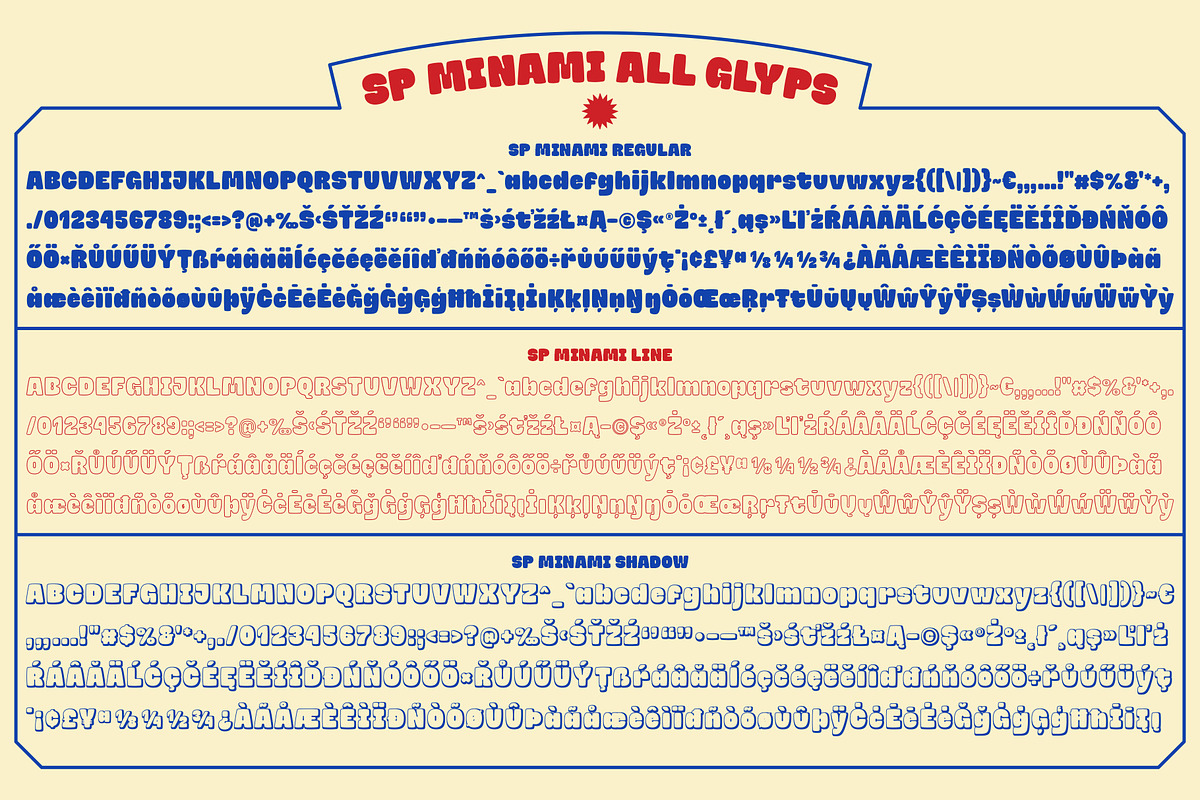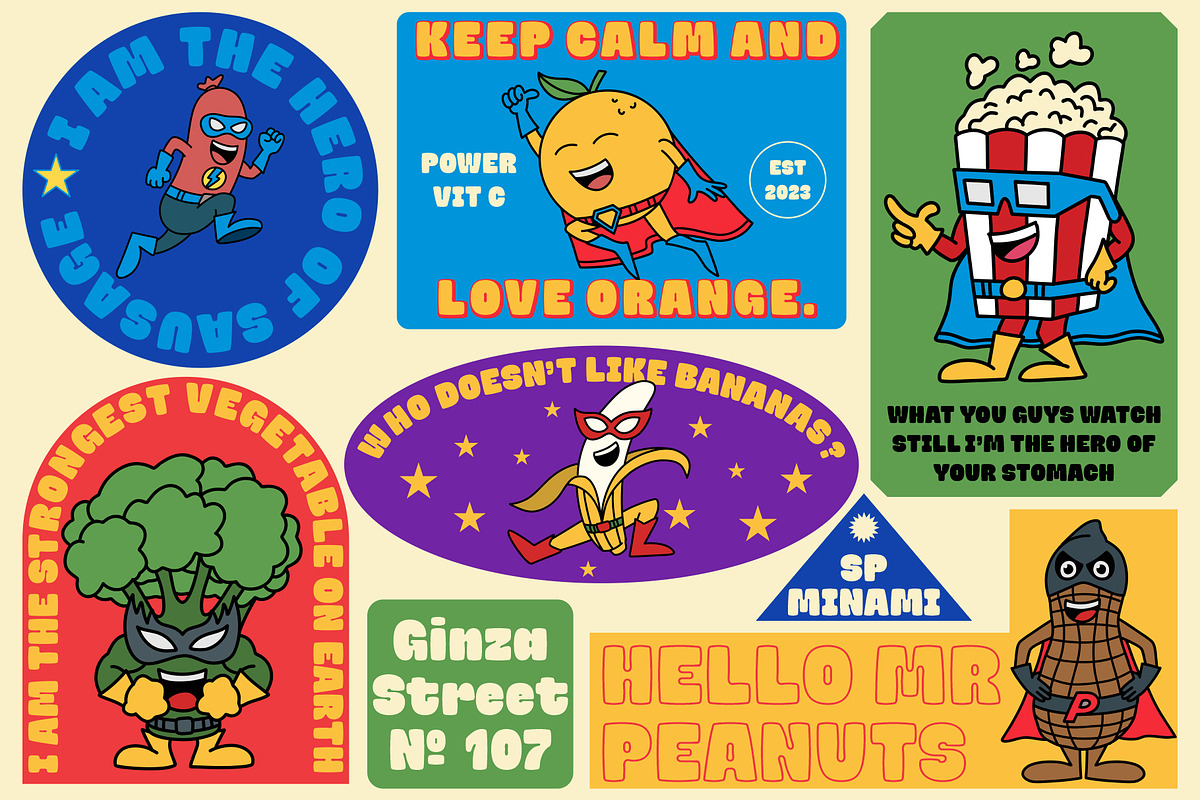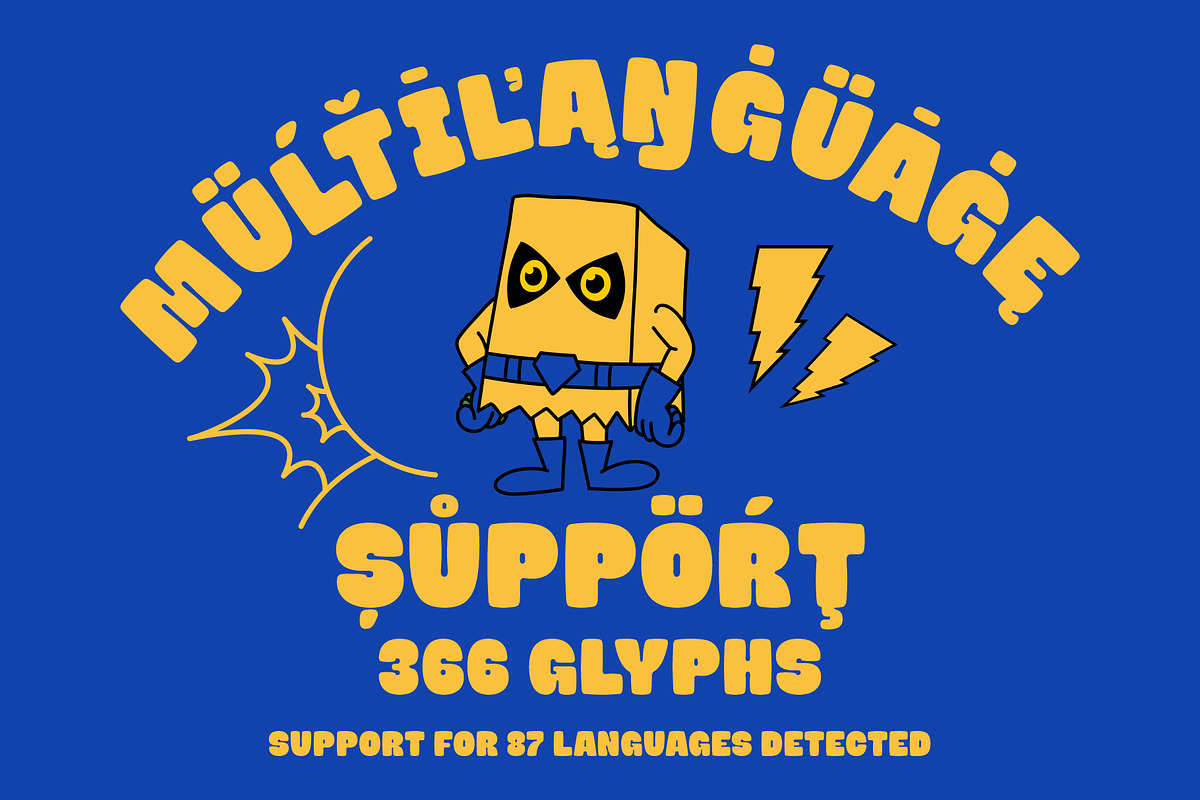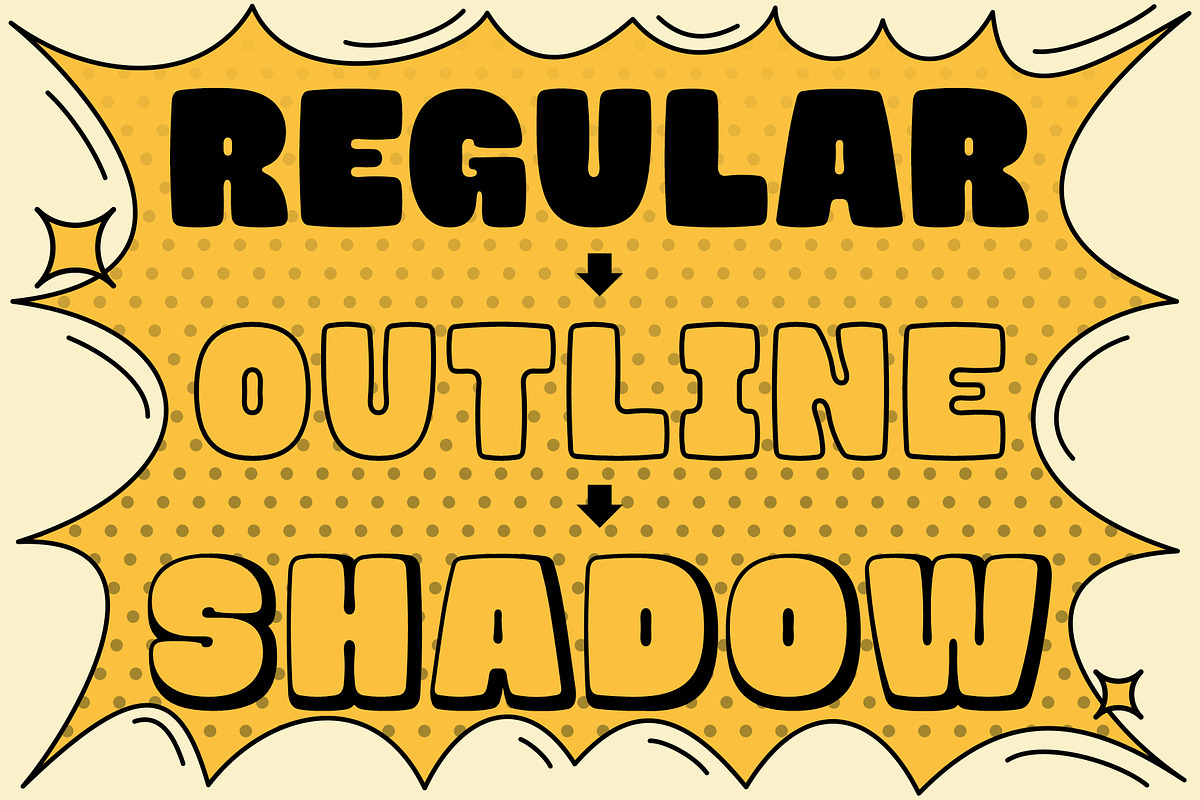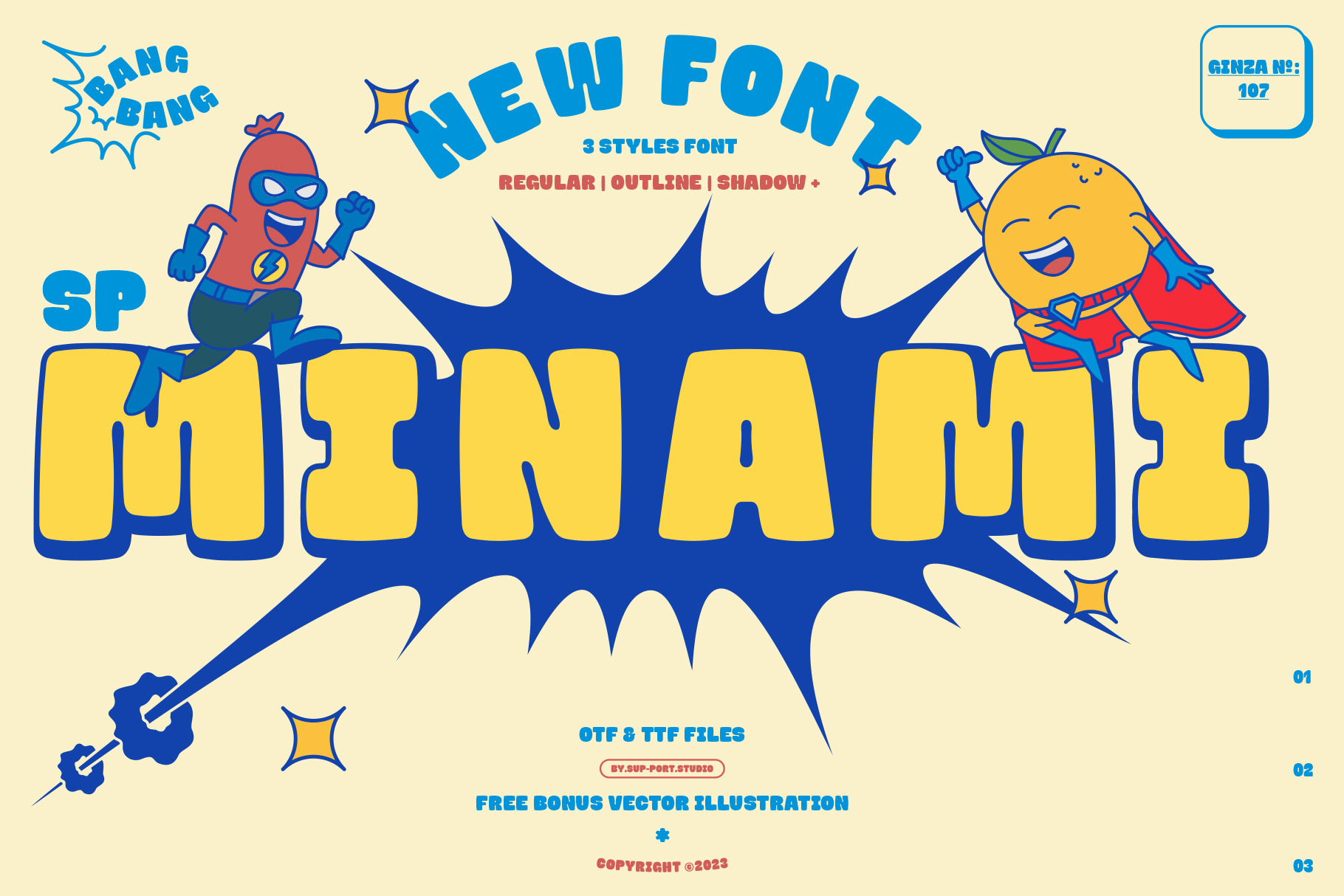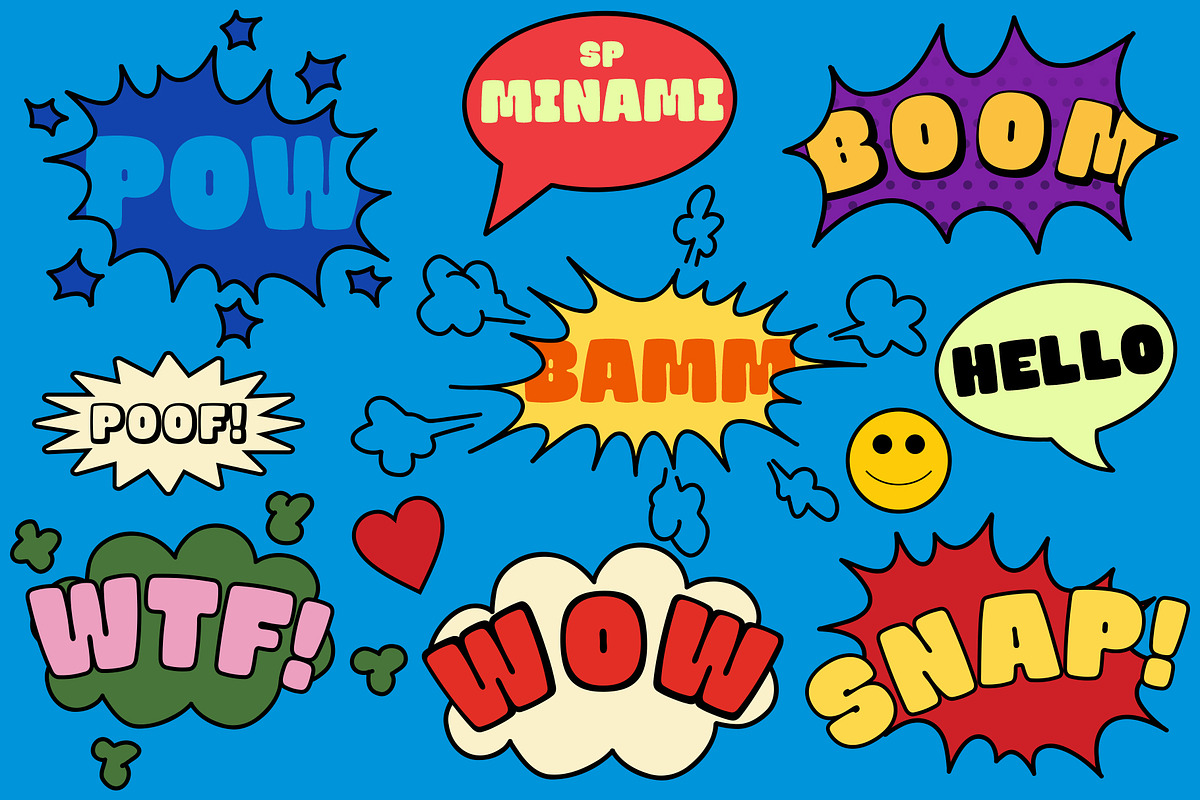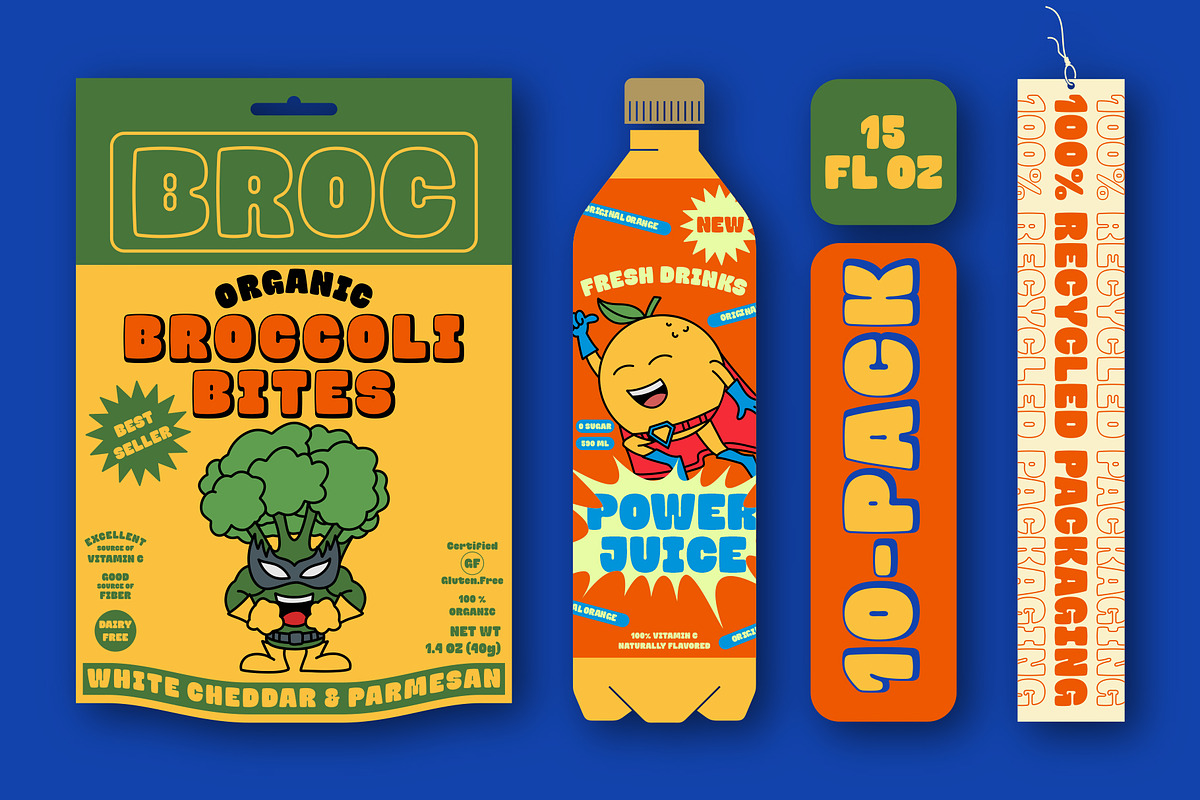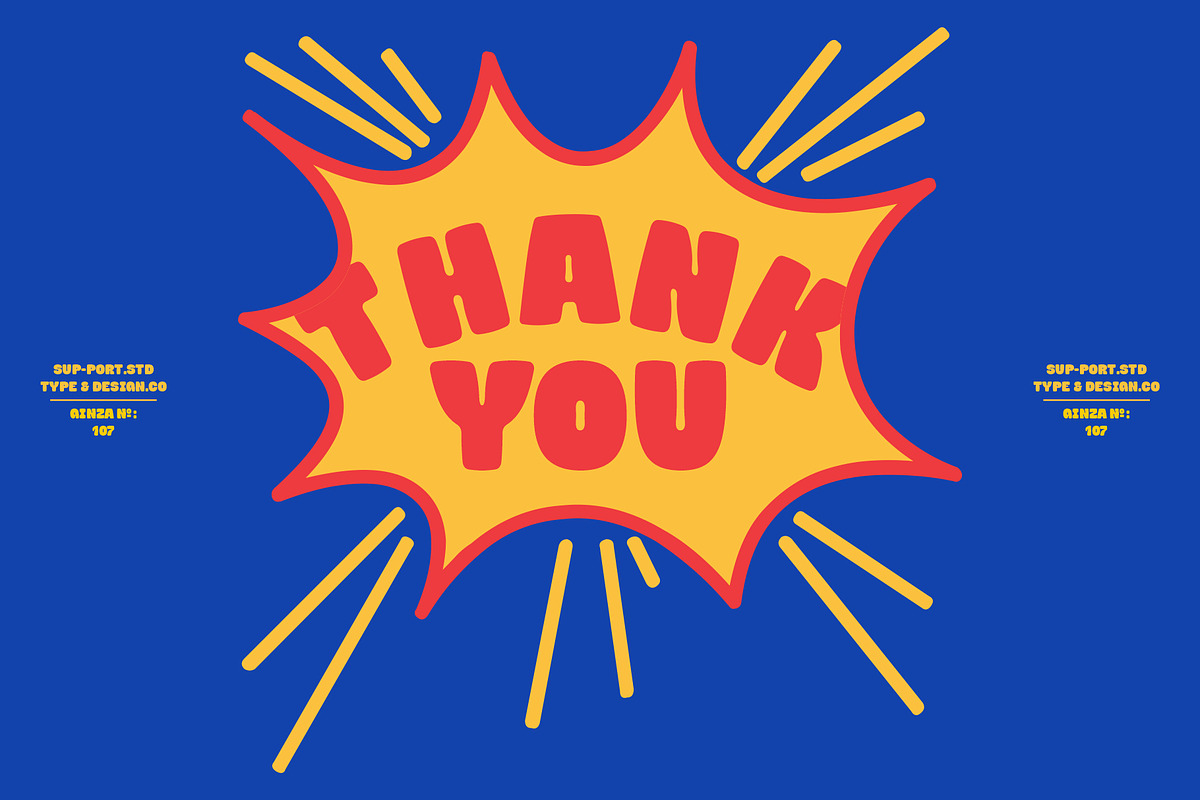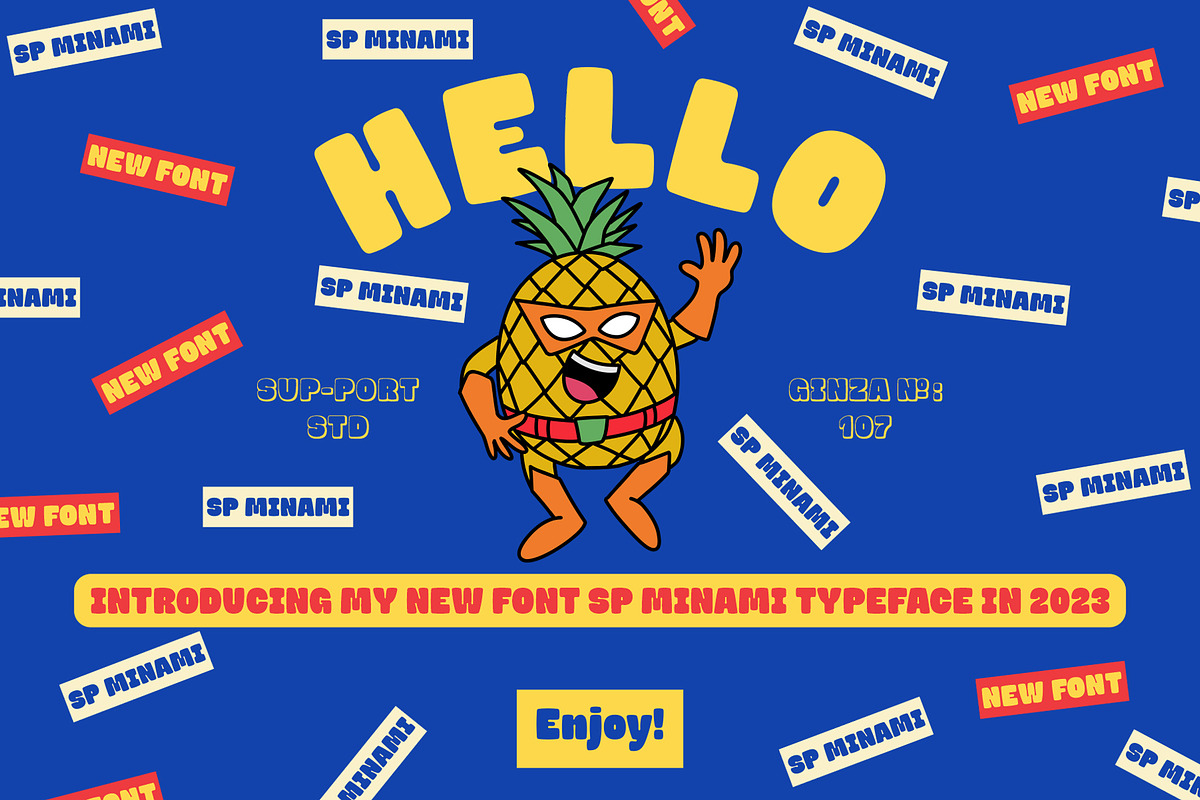
SP MINAMI FONT BUNDLE ILUSTRATIONS
SP MINAMI is a bundled collection of 3 Style fonts (REGULAR, OUTLINE & SHADOW) & FREE Illustrations with a dynamic style, following the current trends, comic style looks, happiness, and playful.
These bundles would be perfect to combine in your design. The typeface comes with OpenType features like ligatures and ordinal, as well as multi-lingual support, currency figures, numerals, punctuation, and arrow.
Opentype Features :
Ligatures, Ordinals, Stylistic Set,
Support Language Extended Latin